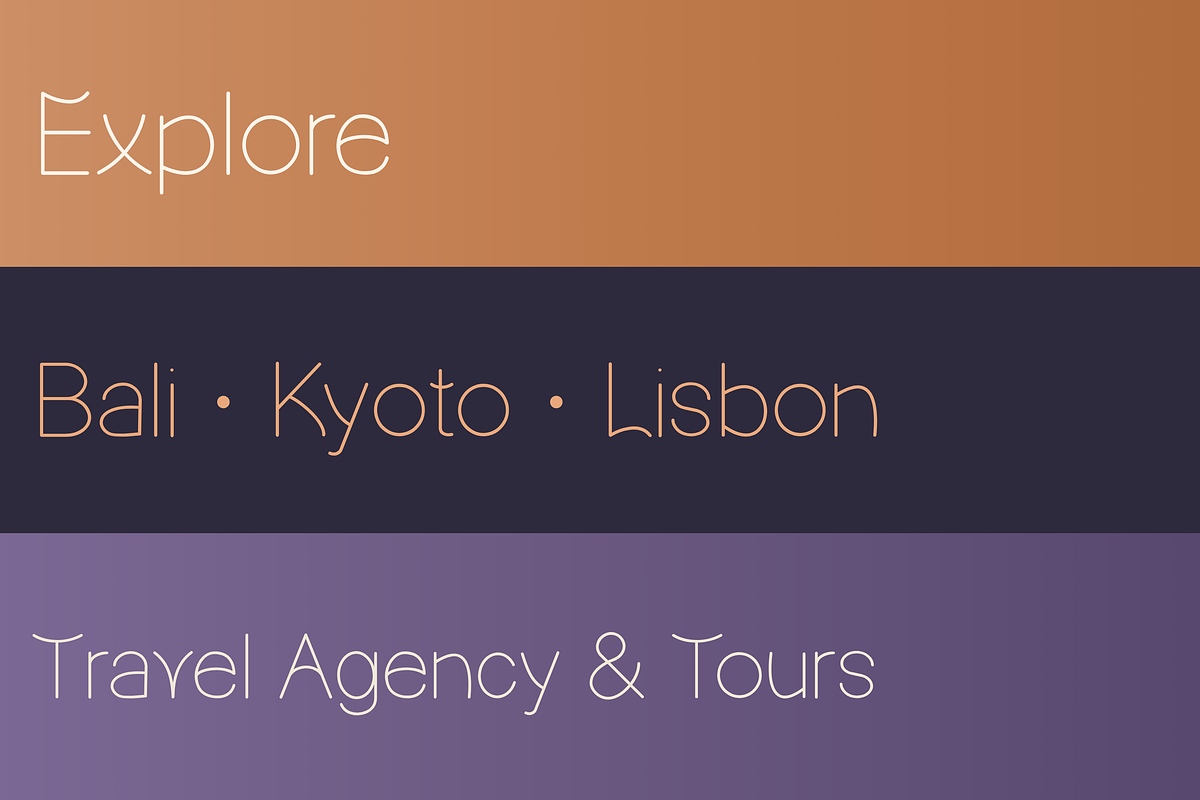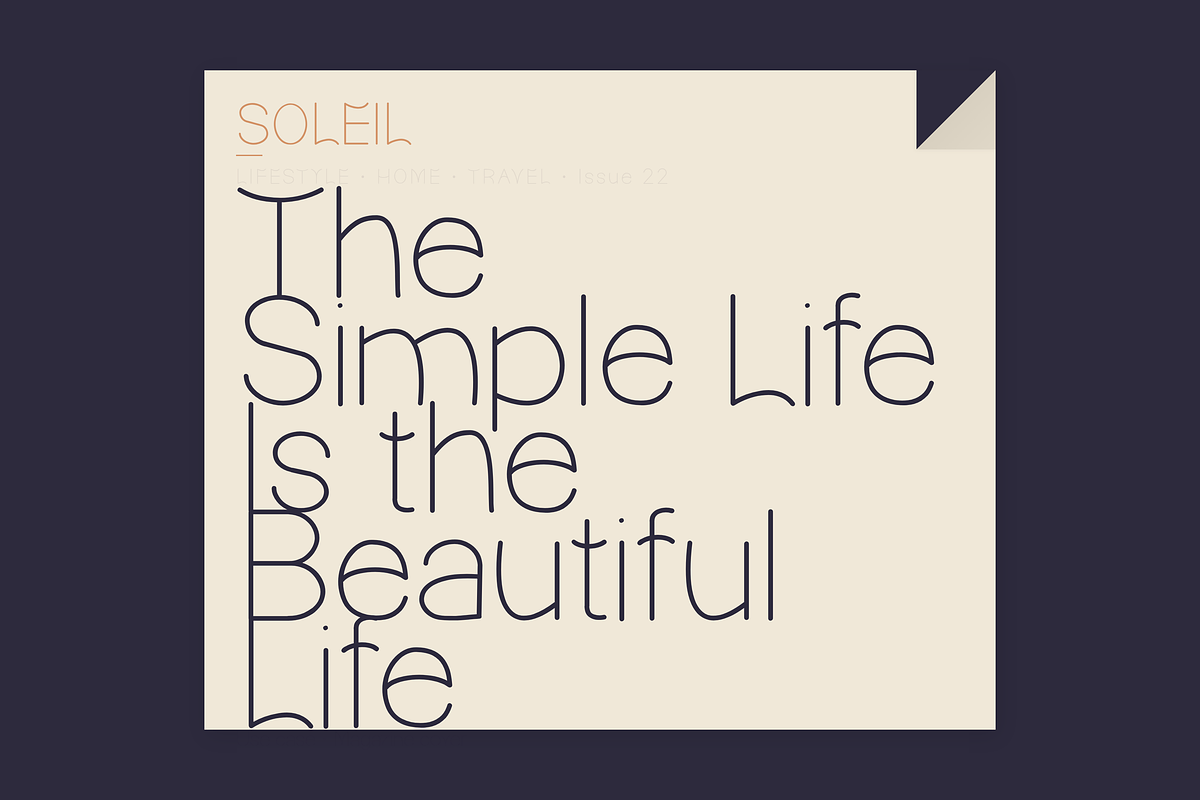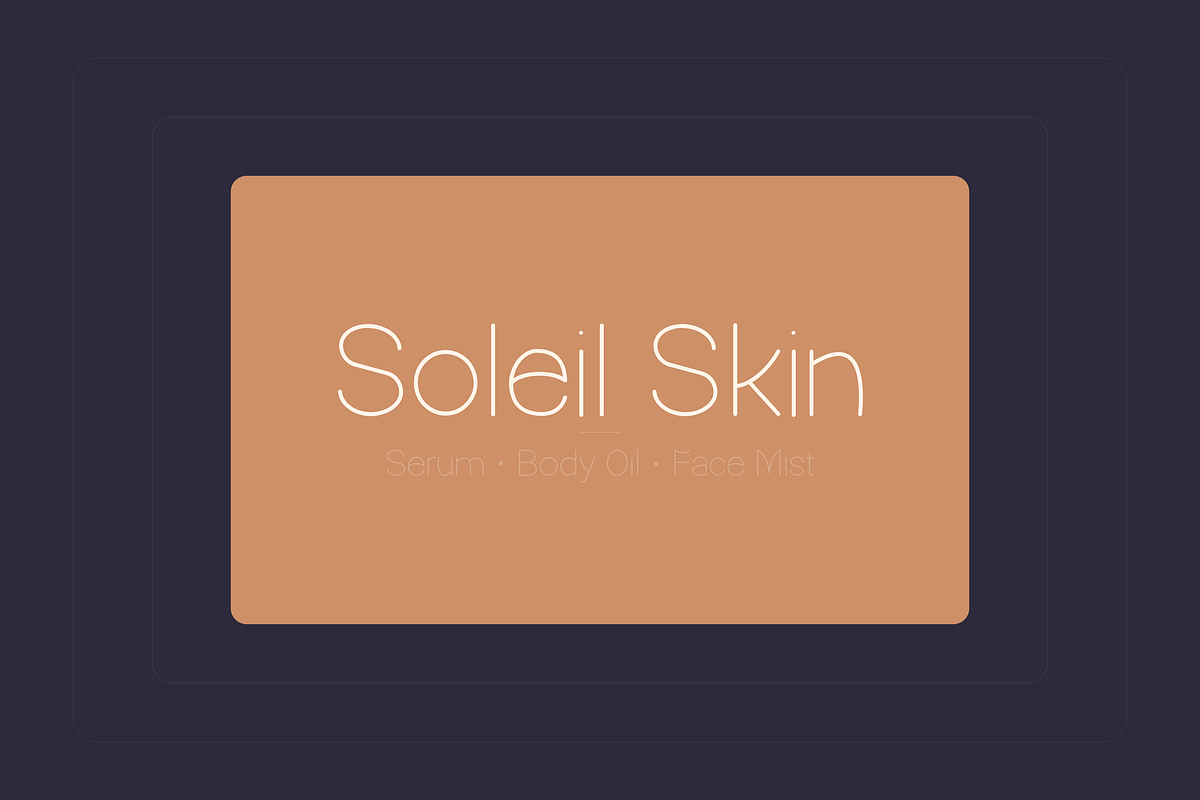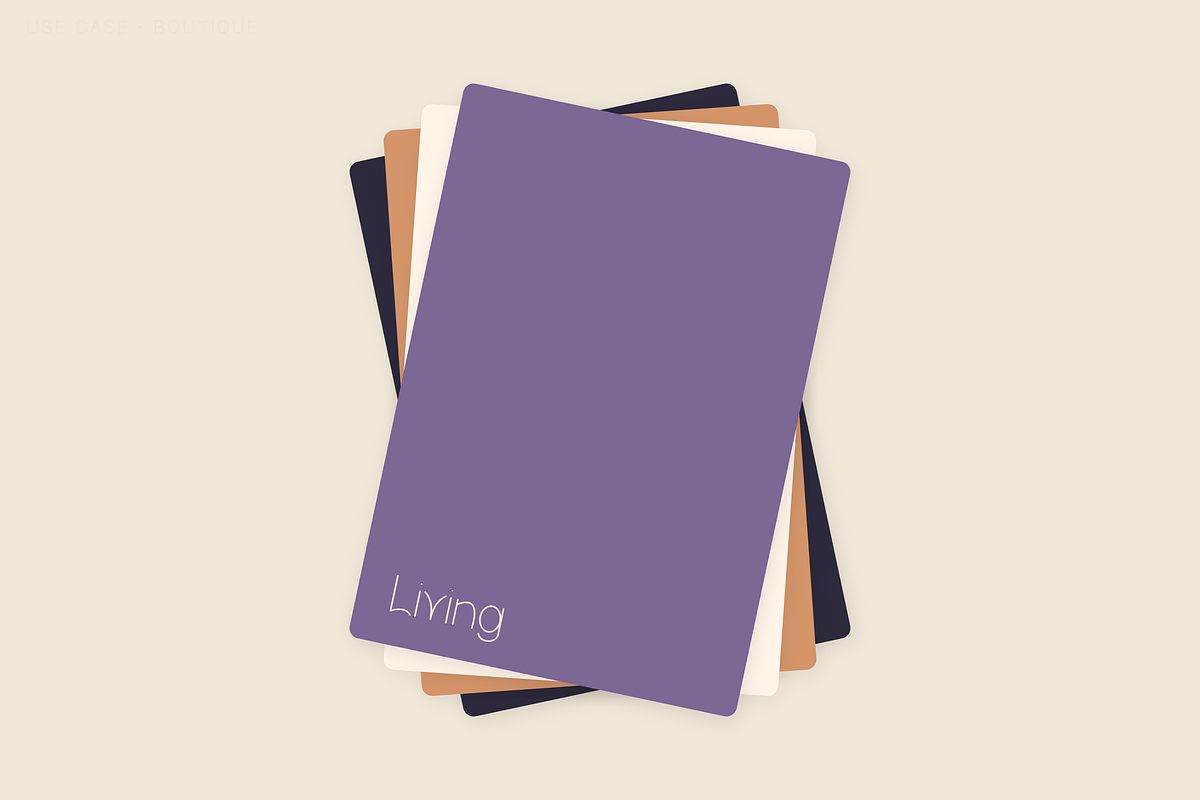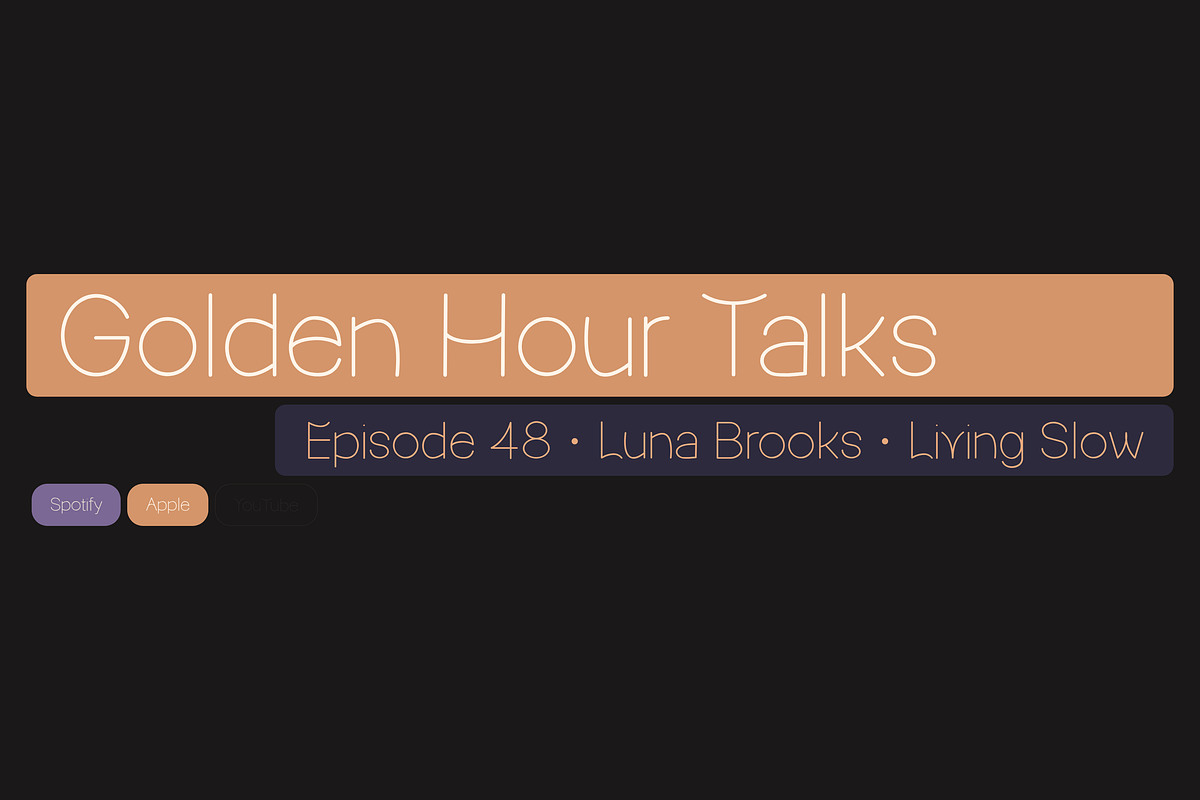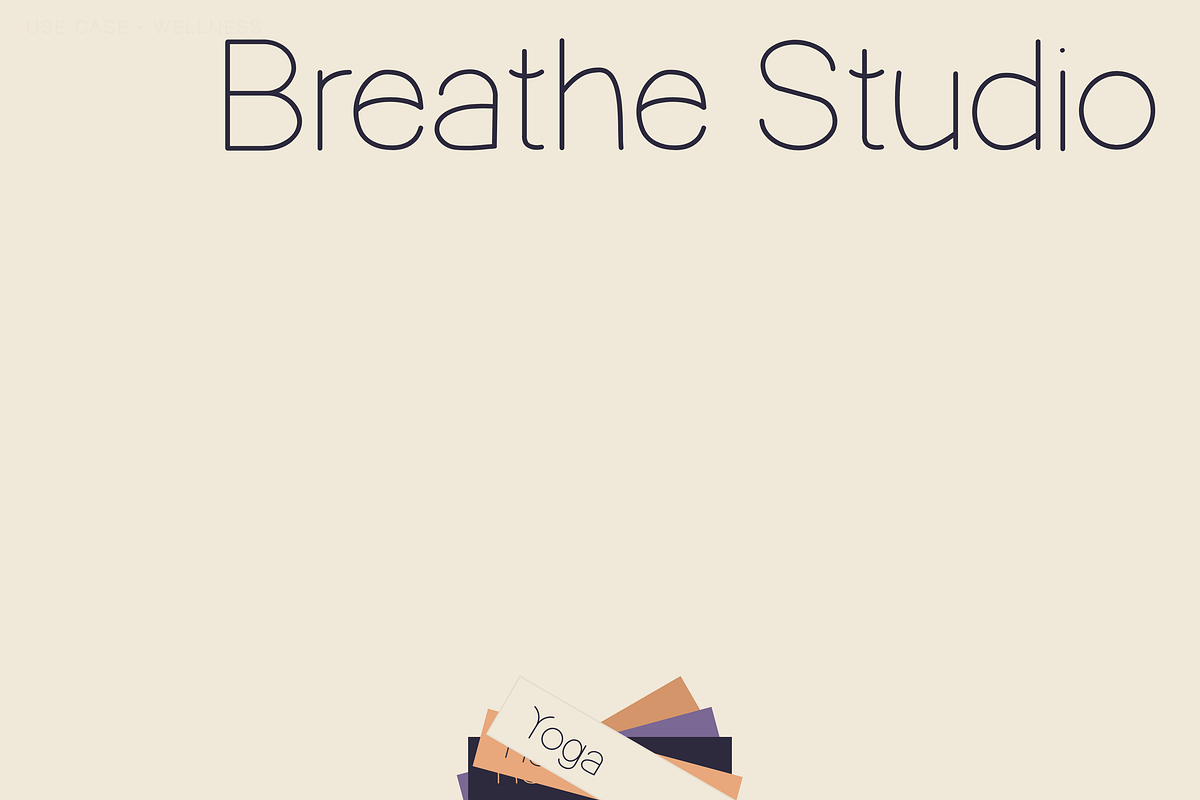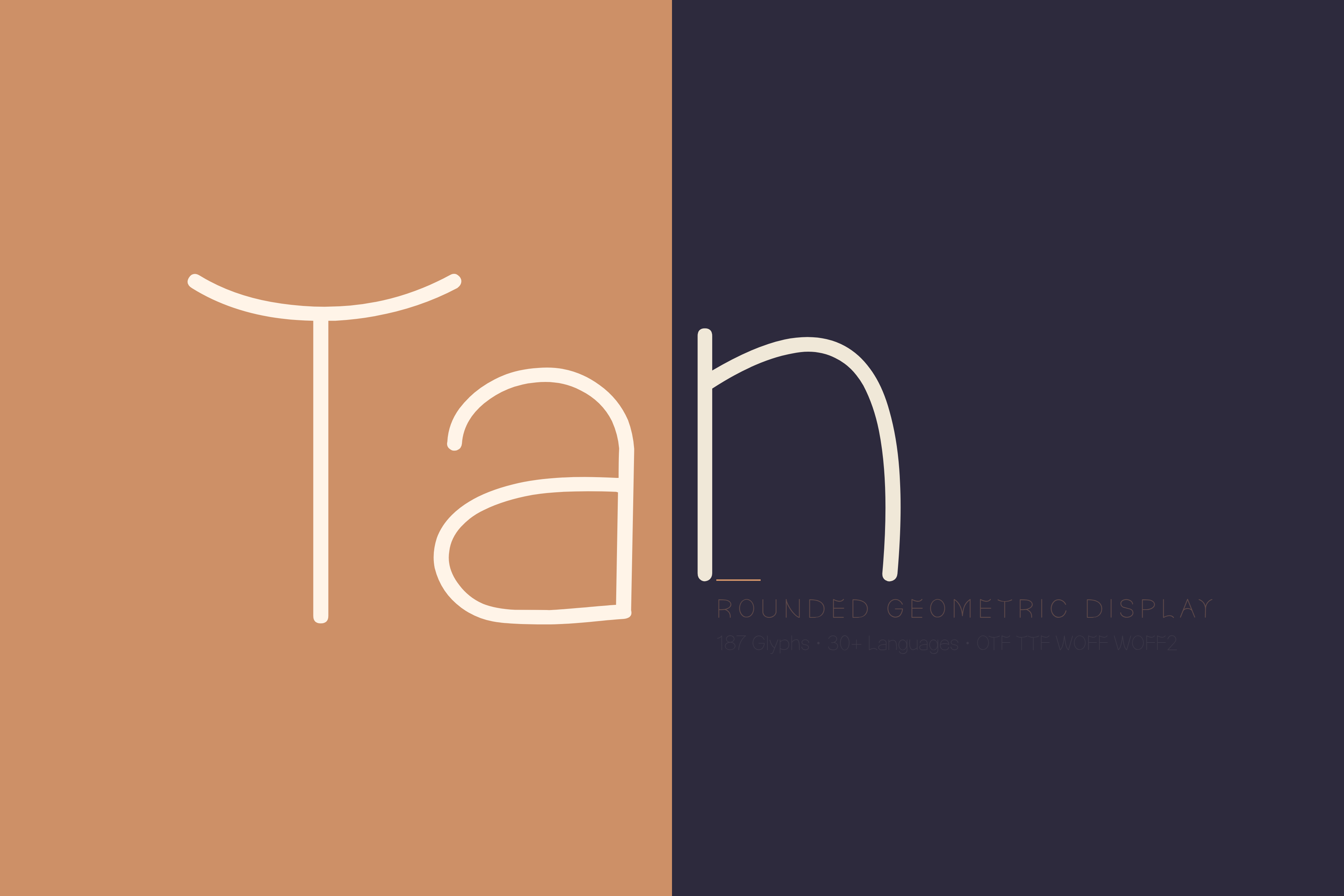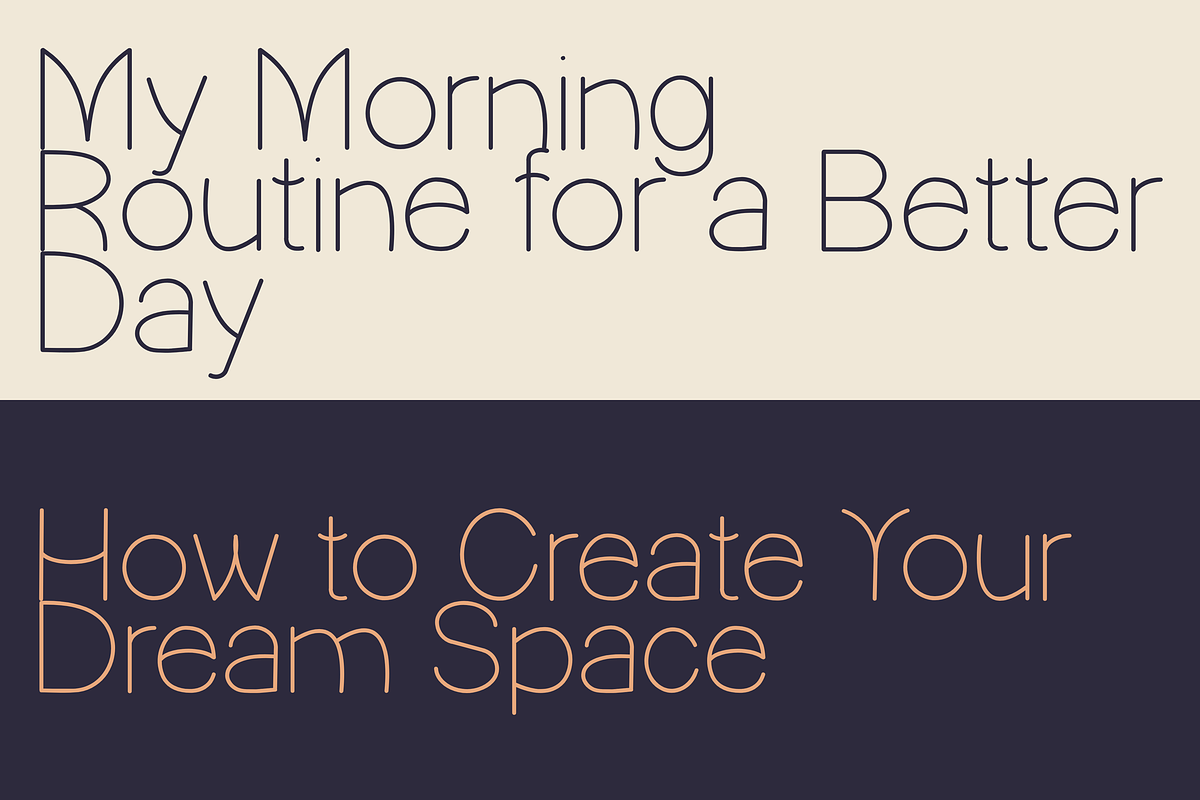
Tan — Rounded Geometric Display Font
Introducing Tan — a rounded geometric display font where every crossbar curves and every terminal softens. The T bends at the top like a gentle wave. The A arches instead of pointing. Letters flow with warm, organic geometry that feels approachable without losing structure.
Tan is golden hour in font form — warm, glowing, effortlessly beautiful.
Tan Font
- 187 glyphs
- Full uppercase & lowercase
- Numerals, punctuation & symbols
- Extended Latin character set
LANGUAGE SUPPORT (30+ languages): French, Spanish, German, Portuguese, Italian, Dutch, Swedish, Norwegian, Danish, Finnish, Polish, Czech, Romanian, Turkish, and many more. Full extended Latin including À Á Â Ã Ä Å Æ Ç È É Ê Ë Ì Í Î Ï Ñ Ò Ó Ô Õ Ö Ø Ù Ú Û Ü Ý ß Œ Š Ž Ł and more.
PERFECT FOR:
- Cafés & specialty coffee shops
- Wellness studios & yoga brands
- Boutiques & lifestyle stores
- Skincare & beauty packaging
- Candle & home fragrance labels
- Health food & organic products
- Lifestyle magazines & editorials
- Podcast covers & channel branding
- YouTube thumbnails & video titles
- Music venues & lounge bars
- Travel agencies & retreat brands
- Wedding invitations & stationery
- Social media posts & stories
- Website headers & landing pages
WHY TAN? Geometric fonts are everywhere — but most feel clinical. Tan is different. Where other typefaces use rigid angles, Tan uses curves. The crossbar on the T arcs upward. The joints on the H and N round off instead of meeting at sharp corners. It's the font you reach for when you want modern and clean but also inviting and human. Perfect for brands built on warmth, aesthetics, and a slower pace of life. One font that makes everything feel like golden hour.